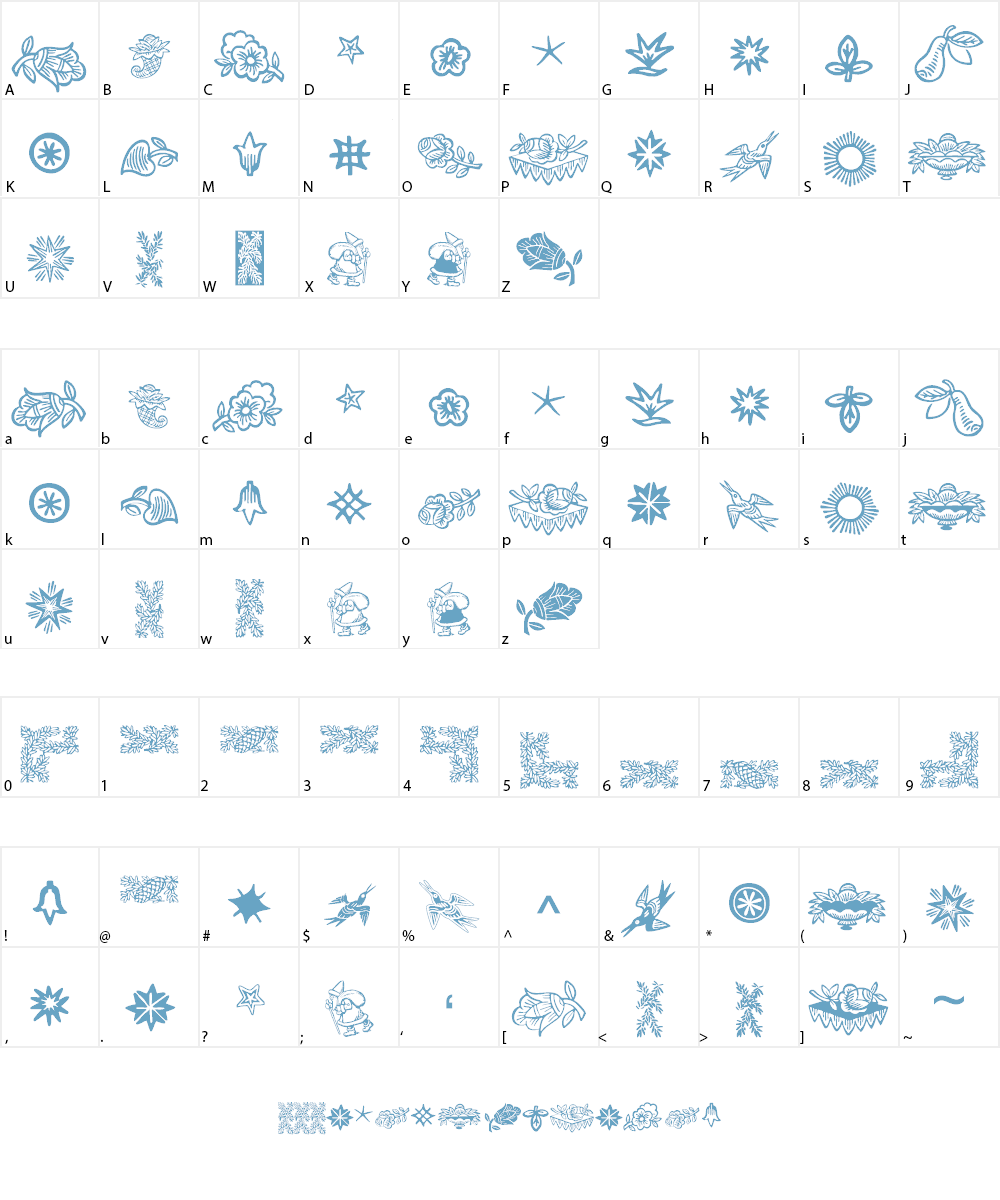
Deutscher Schmuck is based on drawings by Eduard Ege, Munich. Genzsch & Heyse published this collection of ornaments and borders in 1922 when they released a bunch of additional weights of Deutsche Druckschrift (Heinz König, 1888) and a set of beautiful corresponding initials. The font includes the scanned drawings and some extensions by Manfred. And yes, we are working on the initials.